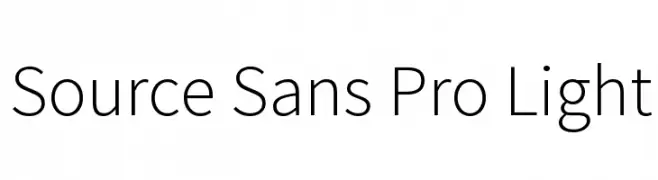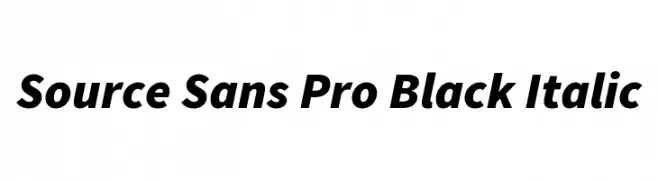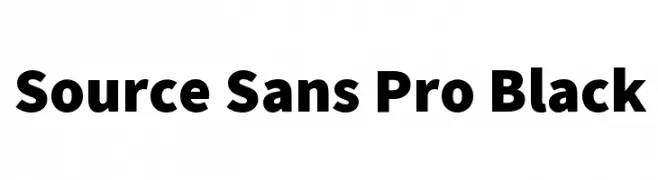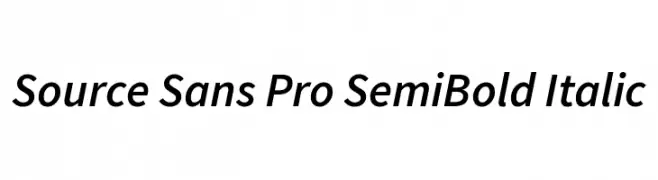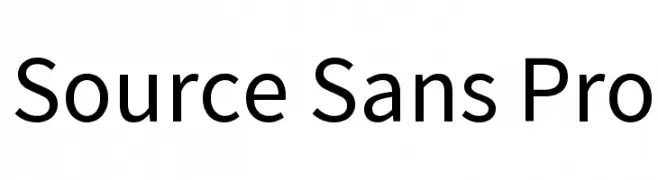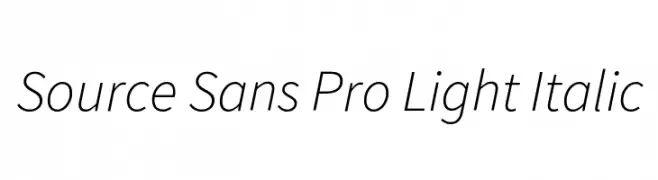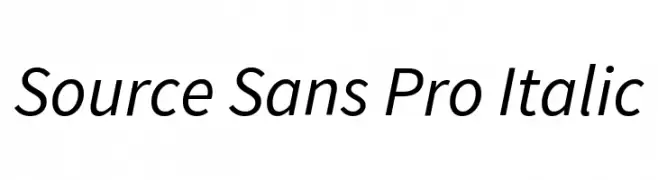
A bold, modern sans-serif font with clean, uniform strokes.
A modern, clean sans-serif typeface with balanced proportions and open forms.
A bold, italic sans-serif font with a modern and professional look.
A modern, light sans-serif font with excellent readability and elegant curvature.
A bold, italicized sans-serif font with a modern and dynamic style.
A bold, modern sans-serif typeface with clean, uniform strokes.
A modern, italic sans-serif font with medium weight and balanced proportions.
A modern, versatile sans-serif font with clean, rounded letterforms and balanced proportions.
A modern, light, italic sans-serif font with sleek and elegant characters.
A modern, italic sans-serif font with smooth curves and excellent readability.